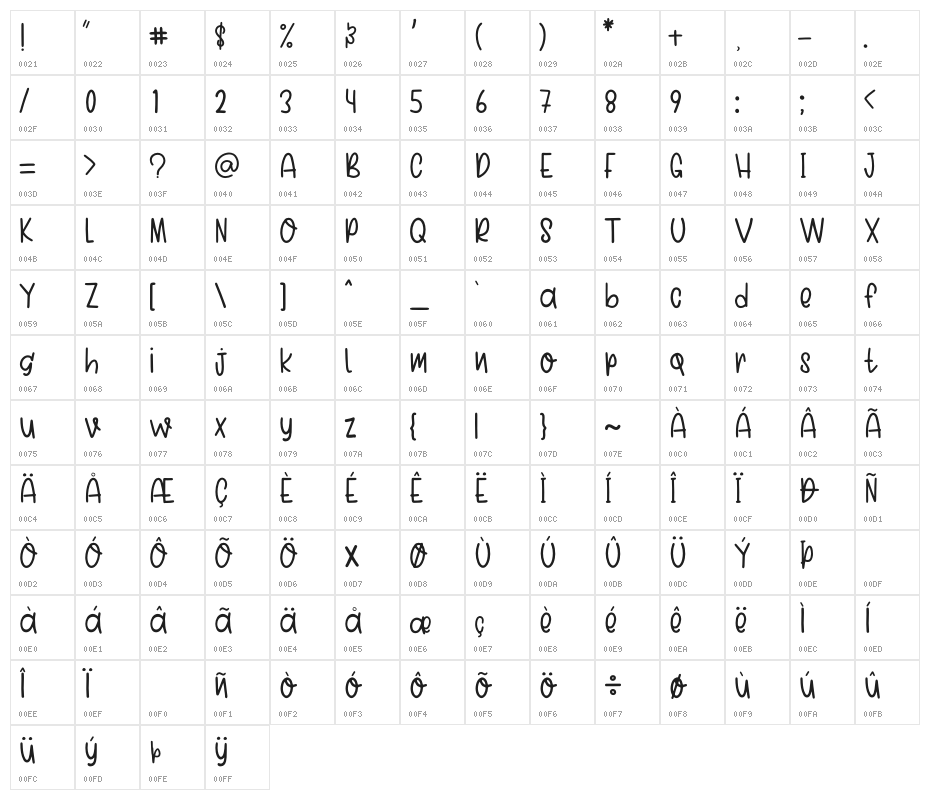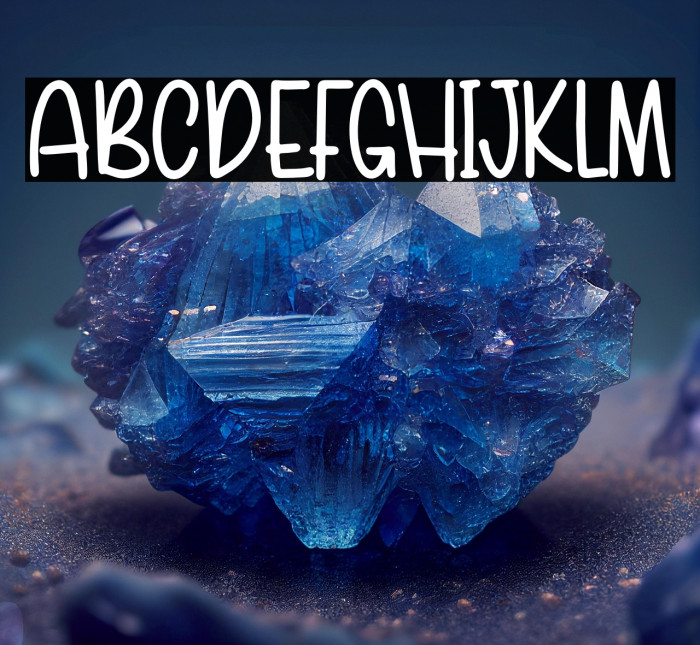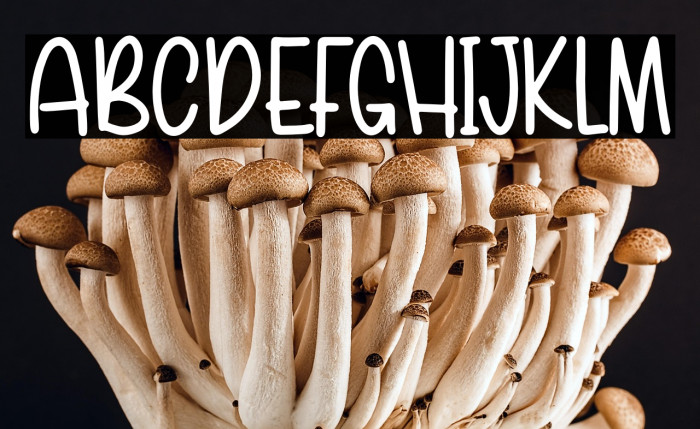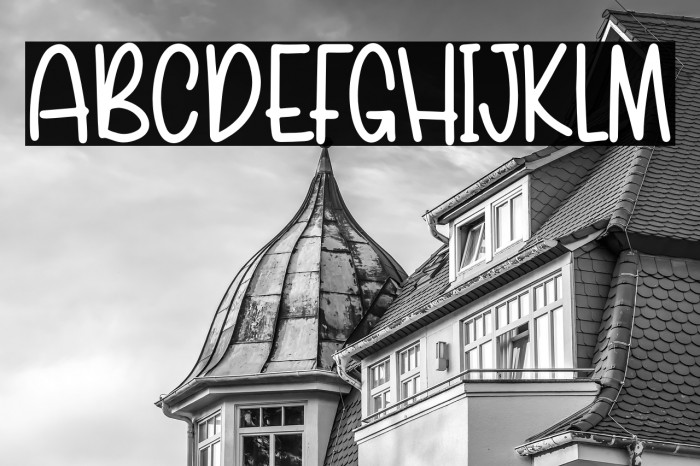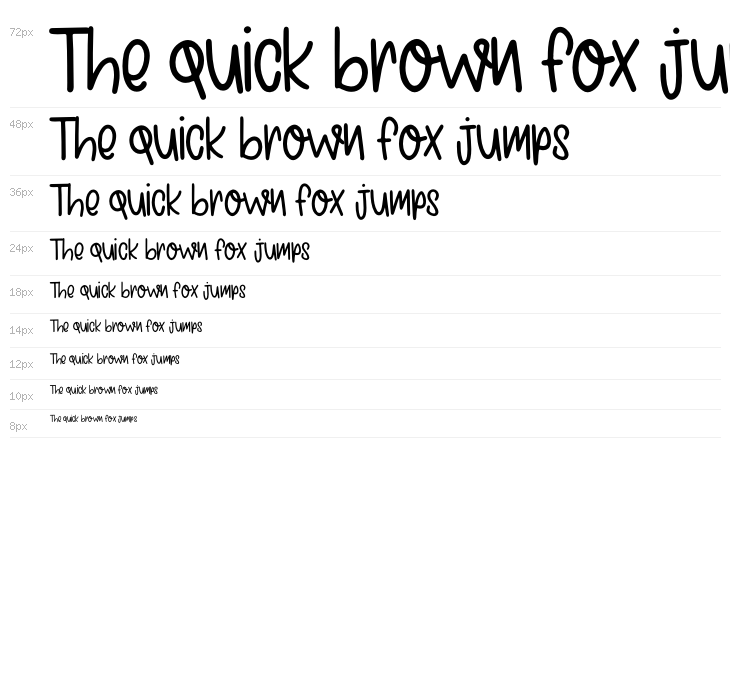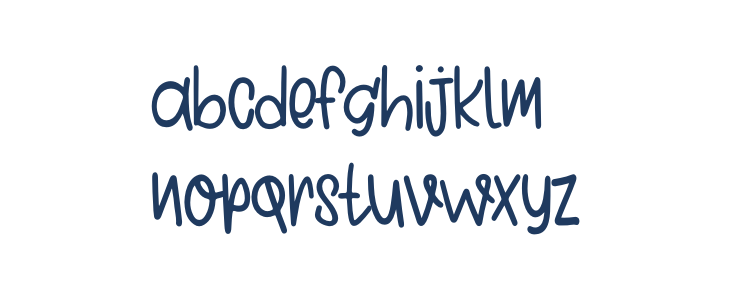
Spring Onion Font
Spring Onion Description
This playful and whimsical font features a handwritten style with a casual and friendly appearance. The characters are slightly irregular, adding to the charm and personality of the typeface. The strokes are smooth and rounded, giving it a soft and approachable feel. The uppercase and lowercase letters maintain a consistent style, with a slight slant that adds a dynamic flow to the text. The numbers and special characters are designed to match the overall aesthetic, ensuring a cohesive look across all elements. This font is perfect for projects that require a personal touch or a fun, informal vibe.
| Overall Style | Playful |
| Use Case | Logos, Headlines, Informal Text |
| Proposed Projects | Ideal for greeting cards, children's books, playful branding, and social media graphics. |